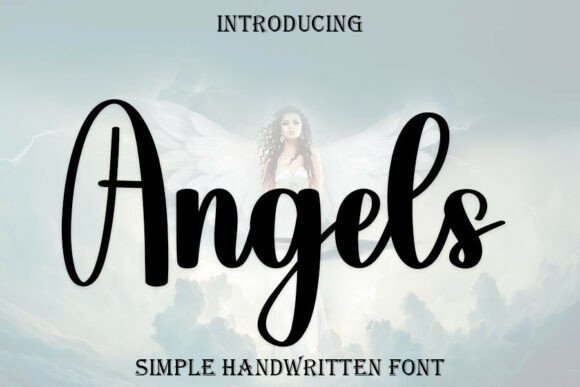
The Magic of the Holiday Season: Introducing Angels Font
There’s something special about designing for the holiday season. The twinkling lights, the festive atmosphere, and the joy of creating something that brings a smile to people’s faces. It’s a time when typography comes alive, and the right font can make all the difference. As I sat at my desk, surrounded by wrapping paper and holly, I knew I needed a font that would capture the essence of Christmas – a font that would add a touch of whimsy and wonder to my designs.
That’s when I stumbled upon Angels Font, a festive and merry typeface that embodies the spirit of the holiday season. With its decorative elements and playful flair, this font is perfect for greeting cards, gift tags, and holiday-themed projects. Whether you’re a seasoned designer or a DIY enthusiast, Angels Font is a valuable addition to your toolkit – offering a unique way to add personality and charm to your words.
Key Features of Angels Font
- Unique Characteristics: Angels Font features a distinctive, elegant design with a mix of cursive and serif elements, making it ideal for creating a sophisticated and professional look.
Review of Angels Font
First off, let me say that the whimsical feel of Angels Font is a major win ✨. The combination of delicate curves and ornate details creates a sense of elegance and sophistication that’s perfect for titles, headings, and other prominent text elements. I also appreciate the wide range of languages supported ✨, making it a great choice for multi-lingual projects.
- Works well in larger font sizes ✨
- Supports a wide range of languages ✨
- Delicate curves and ornate details create a sense of elegance ✨
However, there are some limitations to consider ⚠️. The font can be a bit difficult to read at smaller sizes ⚠️, and the complexity of the design can make it challenging to use in body text or other areas where readability is a priority ⚠️.
Overall, I think Angels Font is a beautiful choice for the right project ✨. It’s perfect for titles, headings, and other prominent text elements, but may not be the best choice for body text or other areas where readability is a priority ⚠️.
Angels Font is commonly used for:
- Baby shower invitations and decorations.
- Christmas and holiday cards.
- Special occasion graphics and social media posts.